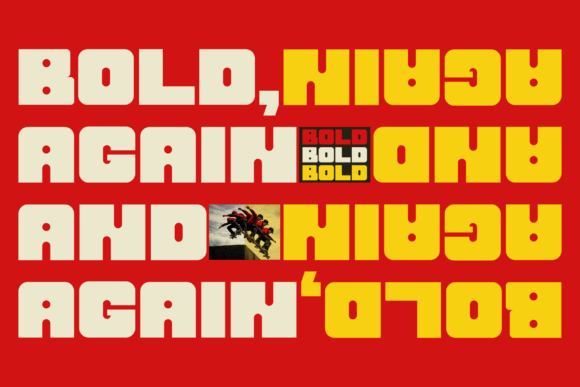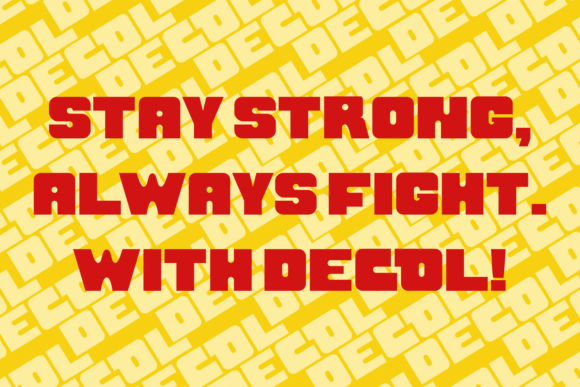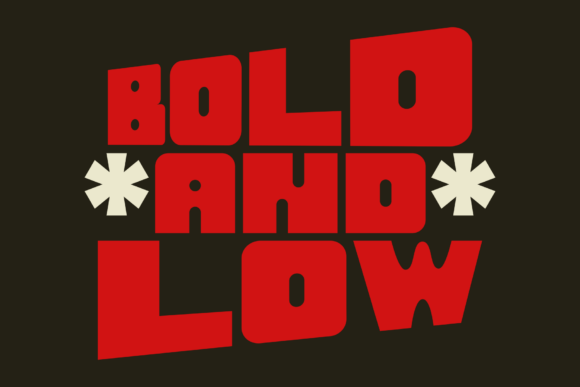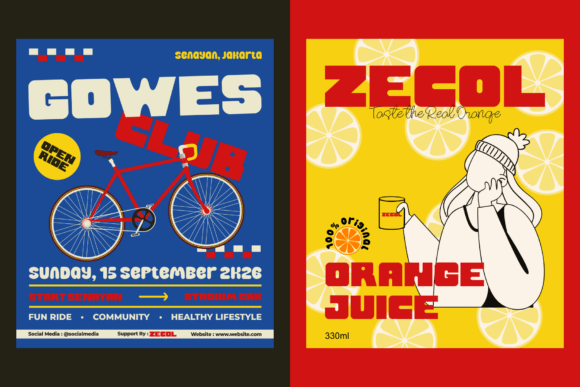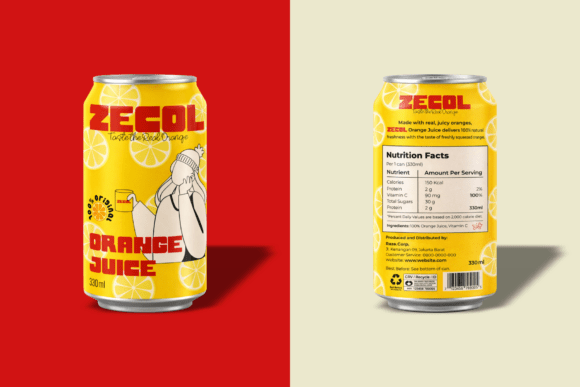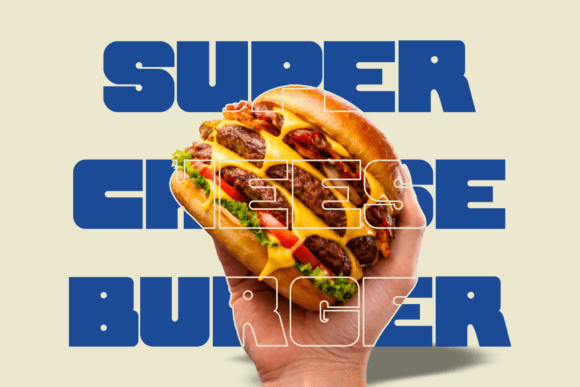
Introducing DECOL RZ: A Bold Retro Sans-Serif Display Font
In the world of typography, fonts play a crucial role in shaping the visual identity of a brand, product, or creative project. For designers and crafters looking for a font that exudes a strong, vintage vibe while maintaining a modern edge, look no further than DECOL RZ. This bold retro sans-serif display font is designed to make a statement, with its unique blend of geometric proportions, block-like structures, and softened corners.
Design Characteristics of DECOL RZ
DECOL RZ boasts a distinctive design that sets it apart from other fonts. Its letterforms are constructed with heavy, geometric proportions, characterized by wide, block-like structures that convey a sense of solidity and strength. The softened corners, on the other hand, add a touch of approachability and friendliness, making the font suitable for a wide range of applications. The uniform stroke weight across all characters reinforces the font’s visual impact, making it perfect for headlines, posters, and branding applications that demand immediate attention.
Key Features of DECOL RZ
- Bold and Geometric Proportions: DECOL RZ features heavy, geometric letterforms that make a strong visual statement.
- Softened Corners: The softened corners add a touch of friendliness and approachability to the font, making it suitable for a wide range of applications.
- Uniform Stroke Weight: The uniform stroke weight across all characters reinforces the font’s solidity and visual impact.
- Multilingual Support: DECOL RZ supports multiple languages, making it a versatile font for global brands and projects.
- Alternate Characters: The font comes with alternate characters, providing designers with more creative options.
- Uppercase: The font features uppercase letters, perfect for headlines, titles, and branding applications.
Use Cases for DECOL RZ
DECOL RZ is a versatile font that can be used in a variety of applications, including:
- Headlines and Titles: The font’s bold, geometric proportions make it perfect for headlines and titles that demand attention.
- Posters and Flyers: DECOL RZ is ideal for posters and flyers that require a strong visual impact.
- Branding and Logo Design: The font’s unique blend of vintage and modern elements makes it suitable for branding and logo design projects.
- Advertising and Marketing Materials: DECOL RZ can be used in advertising and marketing materials, such as brochures, catalogs, and social media graphics.
Why Choose DECOL RZ?
DECOL RZ is a high-quality font that offers a unique blend of vintage and modern elements. Its bold, geometric proportions and softened corners make it perfect for designers and crafters looking for a font that exudes a strong visual identity. With its multilingual support, alternate characters, and compatibility with multiple file formats, DECOL RZ is an excellent choice for a wide range of creative projects.
In conclusion, DECOL RZ is a bold retro sans-serif display font that is sure to make a statement in any design project. Its unique blend of geometric proportions, block-like structures, and softened corners makes it perfect for headlines, posters, branding applications, and more. With its versatility, compatibility, and high-quality design, DECOL RZ is an excellent addition to any designer’s or crafter’s font library.